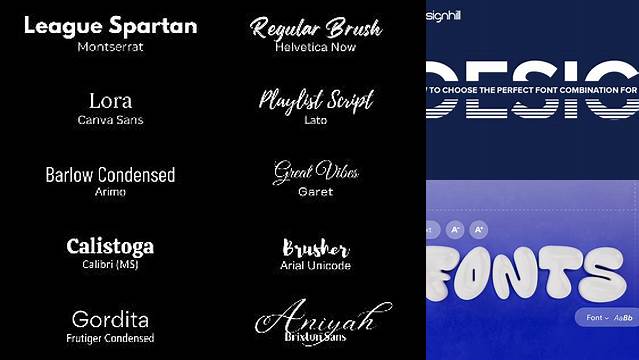
Find Your Perfect Font: A Guide To OnlineWebFonts
Hey everyone! Ever wondered how the right font can completely transform a design, making it pop and grab attention? Well, today, we're diving headfirst into the awesome world of typography, with a special focus on how you can find the perfect font for your projects using OnlineWebFonts. Finding a great font can feel like searching for a needle in a haystack, right? But with the right tools and a little know-how, you can easily unlock a treasure trove of beautiful fonts that will make your designs shine. Let's explore how you can level up your design game with stunning fonts!
Dive into the World of Fonts: Why Typography Matters
So, why is typography such a big deal, you ask? Well, it's more than just picking pretty letters. Typography is the art and technique of arranging type to make written language readable, legible, and appealing when displayed. It's about choosing fonts that fit the mood of your message. Think about it: the right font can be the difference between a design that gets noticed and one that gets lost in the noise. Typography is the visual representation of your message, and it has a huge impact on how your audience perceives your brand, your message, or whatever it is you're putting out there. Choosing a font is an important decision, which is why we're exploring this topic.
Understanding typography helps improve your designs. The right typography can turn any ordinary design into a visual masterpiece. The goal is always to improve readability, create visual hierarchy, and establish brand identity. A clear and well-chosen font can help your audience easily read the content and understand the message. Also, typography contributes to a design's visual hierarchy, guiding the reader's eye to the most important elements and helping create a sense of organization. It also gives your brand a unique voice that reflects its personality and values. This is why typography is so important.
Think about the impact of using different fonts for different kinds of projects. For instance, a sleek, modern font for a tech company creates a sense of innovation and professionalism, while a playful, handwritten font for a children's brand can convey fun and approachability. The wrong choice can lead to visual chaos, miscommunication, and a negative impression of your brand. It makes you look like you don't know what you are doing. With the right typography, you can instantly convey a message, build credibility, and engage your audience.
Exploring OnlineWebFonts: Your Gateway to Font Nirvana
Now that we've established why typography is so crucial, let's introduce you to OnlineWebFonts, your go-to destination for all things font-related. It's a massive library of fonts, where you can browse, download, and experiment with a huge variety of typefaces. OnlineWebFonts offers an easy and intuitive interface that allows you to find exactly what you're looking for, whether you're a seasoned designer or just starting out. It can provide designers, bloggers, and anyone who is looking to enhance their design with fonts.
One of the best things about OnlineWebFonts is the sheer variety of fonts available. They have tons of options, from classic serifs and clean sans-serifs to more unique and decorative fonts. You'll be able to find exactly what you need for your projects. The website also has a handy search bar and filters to help you narrow down your options. Filters can be used to narrow down font choices based on style, weight, and popularity. You can even type in custom text and see how it looks with different fonts before you download them. This is a great tool for previewing the fonts and seeing how they appear.
OnlineWebFonts also offers free fonts. This means that you can explore different font styles for all of your projects. The site makes it super easy to download fonts. It makes it accessible for everyone to use. Whether you're working on a website, a presentation, or a social media graphic, you can find the perfect font on this website.
Finding Your Perfect Font: A Step-by-Step Guide
Alright, ready to start your font journey? Here's a simple step-by-step guide to help you find the perfect font on OnlineWebFonts:
- Visit the Website: Head over to the OnlineWebFonts website and get ready to explore the font options.
- Browse and Search: Use the search bar or browse through the categories to find fonts that match your needs. You can search by style, popularity, and other criteria.
- Preview Your Text: Before you download, type in your text to see how it looks in different fonts.
- Download Your Font: Once you find the perfect font, download it and install it on your computer.
- Get Designing! You can use the font on your designs.
Now, let's dive deeper into the search process. There are a few things to keep in mind to help find the right font. Consider what type of project you are doing. You can find a font that fits your brand. Think about the style you want to achieve. It could be modern, classic, playful, or minimalist, depending on your needs. Take the time to explore all of the fonts.
One trick is to start with the basics. Begin with choosing between serif and sans-serif fonts. Serif fonts, which have small strokes, are often used for traditional and formal designs. Sans-serif fonts, which don't have strokes, are great for modern and clean designs. Consider the font's weight, which affects how bold or light the font appears. Then, explore different fonts to find out what works best for you.
Final Thoughts: Unleash Your Inner Typographer!
So, there you have it! You are on your way to mastering typography with OnlineWebFonts. You are now able to find the perfect fonts. Remember that the right font can transform any design into something eye-catching. OnlineWebFonts is the perfect tool to find the right font for your projects. Have fun experimenting and unleash your inner typographer! Happy designing, everyone!